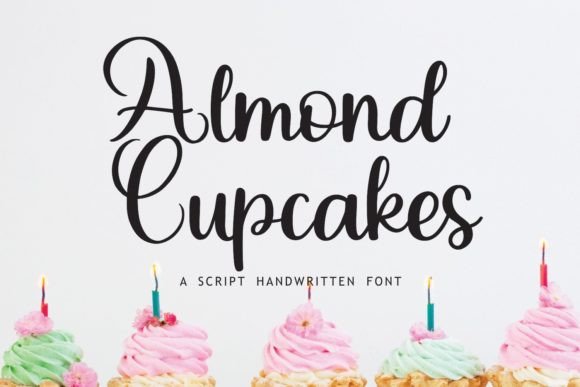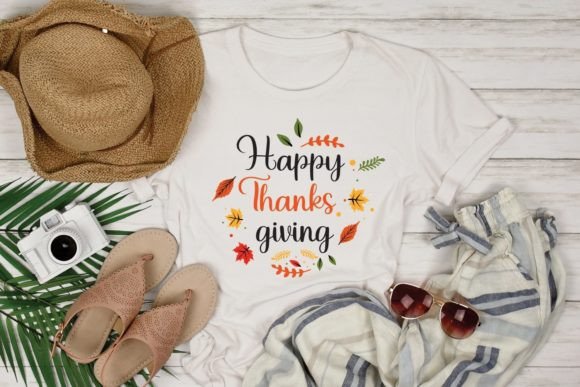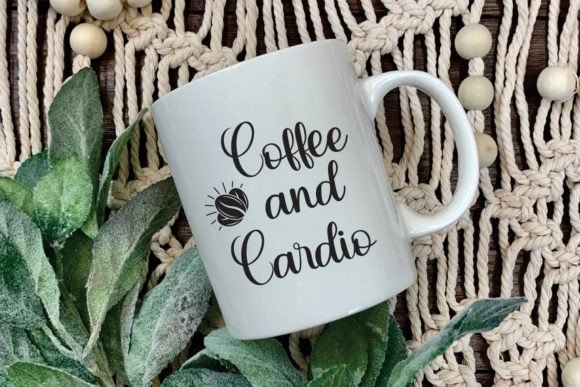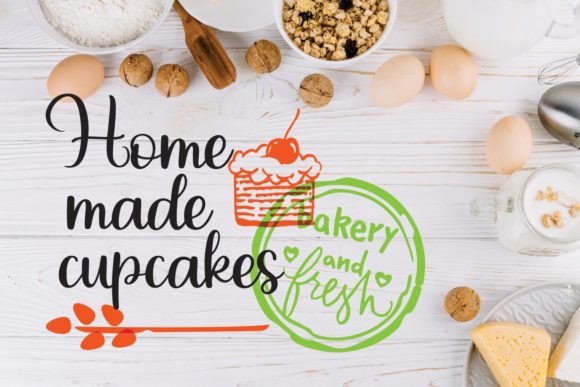
Almond Cupcakes Font: Cute Handwritten Script for Cricut & DIY Projects
About the Almond Cupcakes Font
Presenting Almond Cupcakes Font, a unique and stylish typeface that will make your work stand out. Almond Cupcakes is a script handwritten font.
It is a quirky and natural hand-drawn font.
This font is ideal for crafting, branding, and decorating any project. This font is perfect for wedding invitations or your blog. Also, with this font’s help, you can create a logo or beautiful frame for your home. Or just use it for your business, book covers, stationery, marketing, magazines, and more. Fall in love with its incredibly versatile style, and use it to create spectacular designs!
Use this font for any crafting project that requires a personalized look!
Almond Cupcakes Font Usage Examples
Almond Cupcakes Font Example